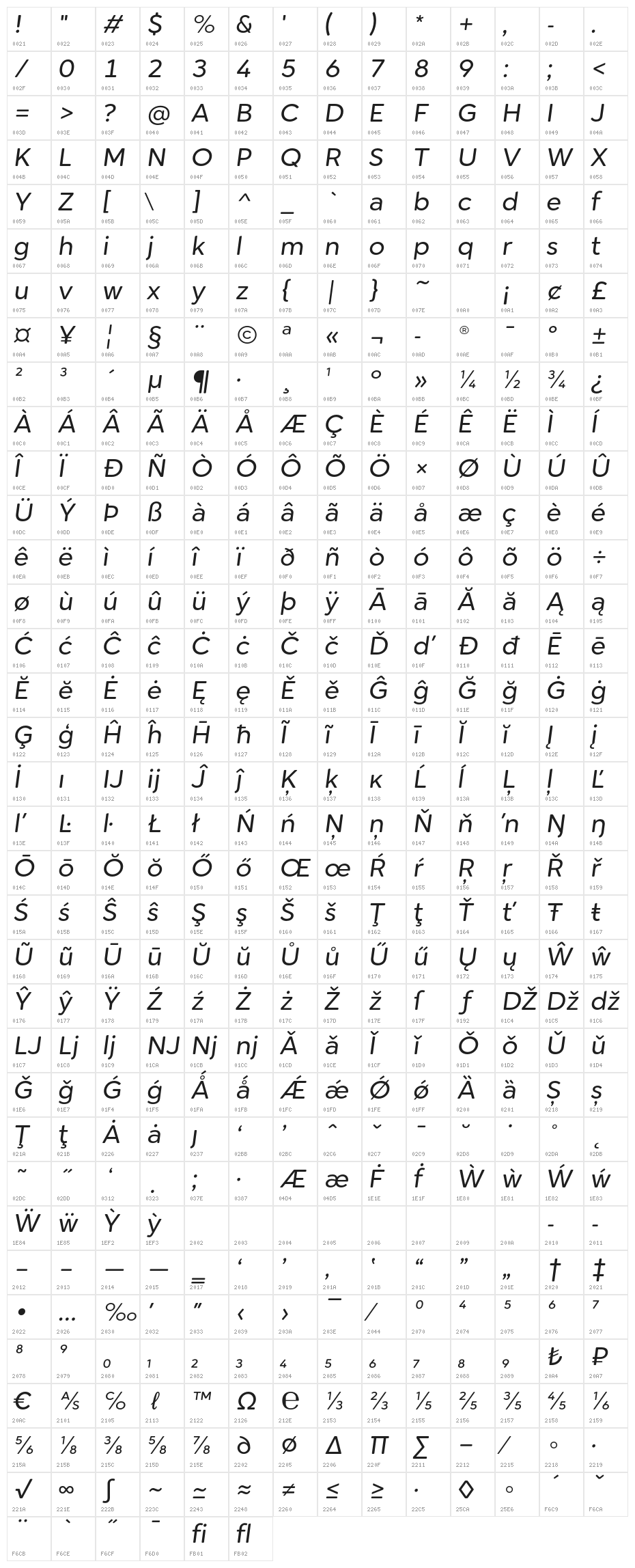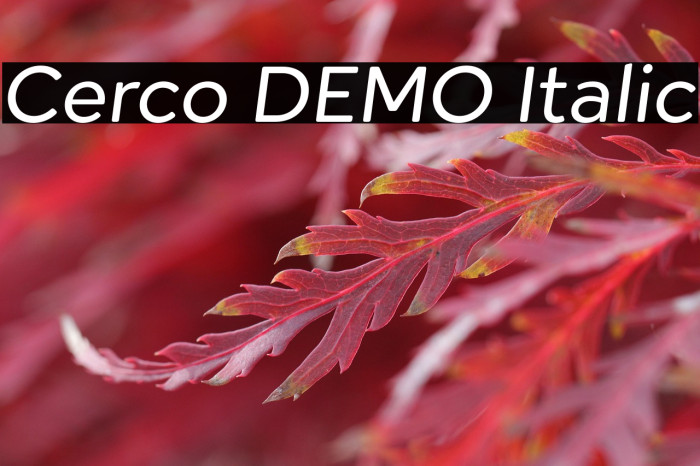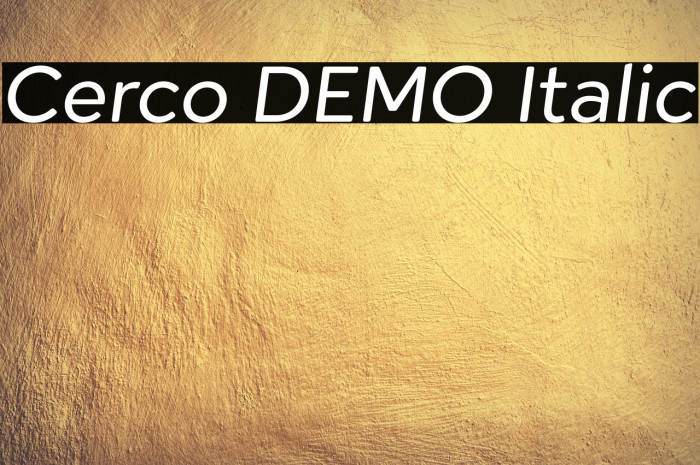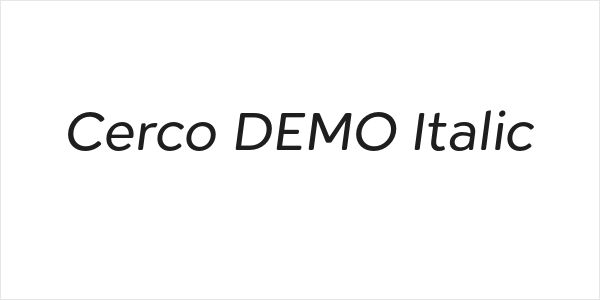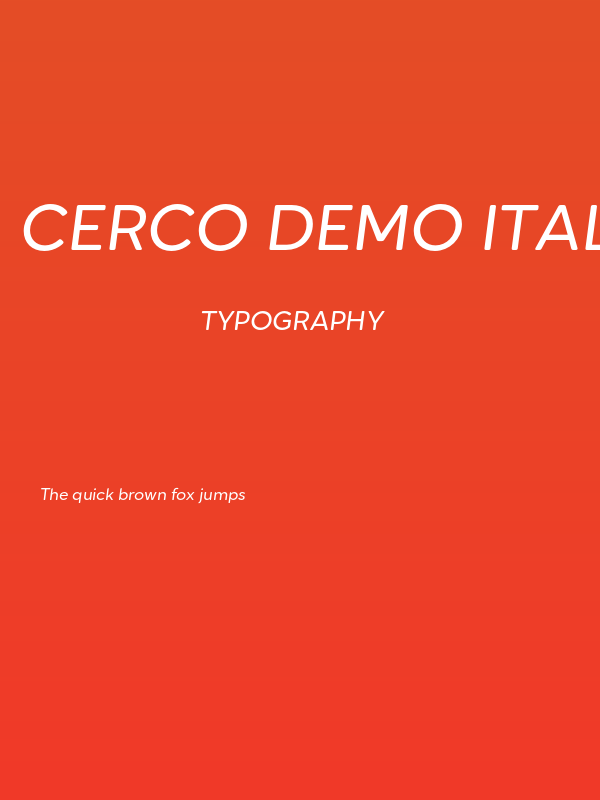
Cerco DEMO Italic Font
Cerco DEMO Italic Description
This font features a sleek, modern design with a slight italic slant, giving it a dynamic and forward-moving appearance. The characters are clean and well-defined, with smooth curves and a consistent stroke width that maintains readability across various sizes. The uppercase letters are bold and assertive, while the lowercase letters offer a more approachable and friendly feel. Numbers are clear and distinct, making them ideal for data presentation. Special characters are well-integrated, ensuring versatility in different contexts. The overall style is contemporary, making it suitable for a wide range of applications.
| Proposed Projects | Ideal for branding, advertising, digital content, and modern editorial design. |